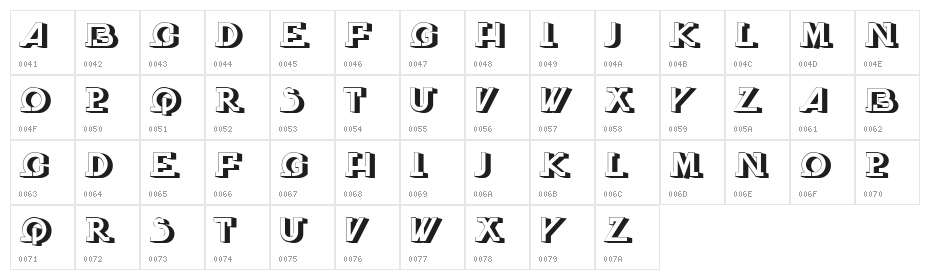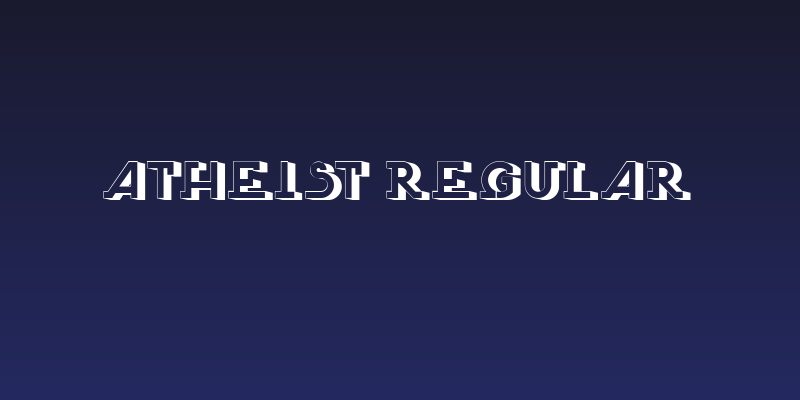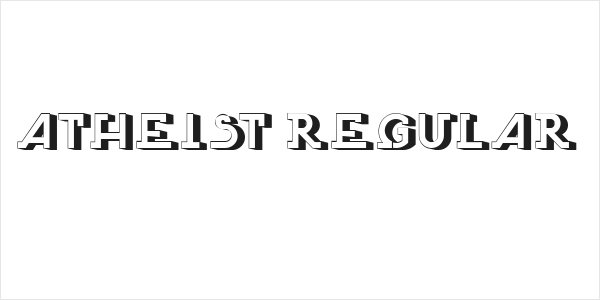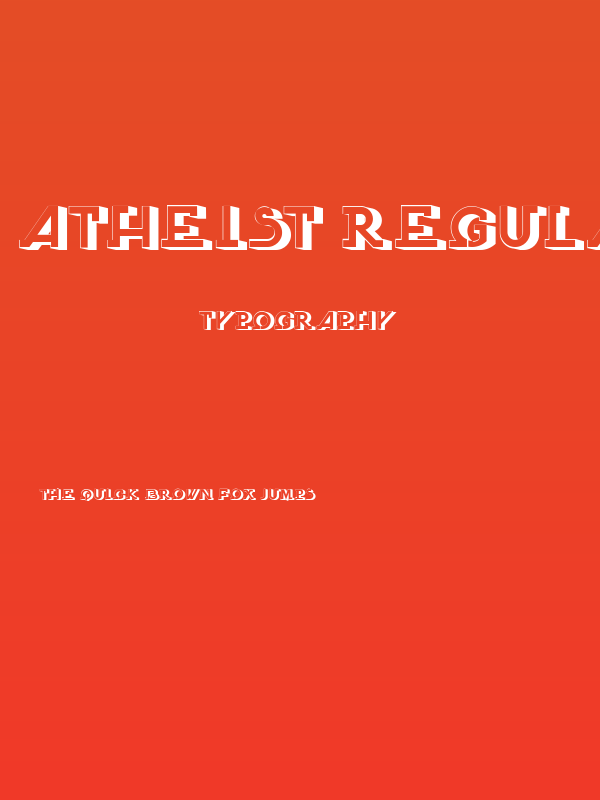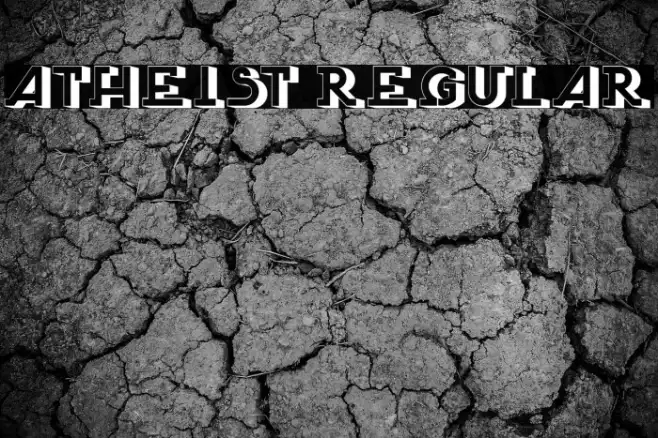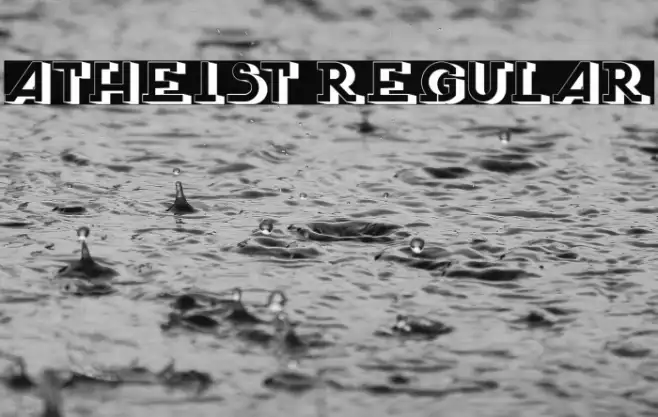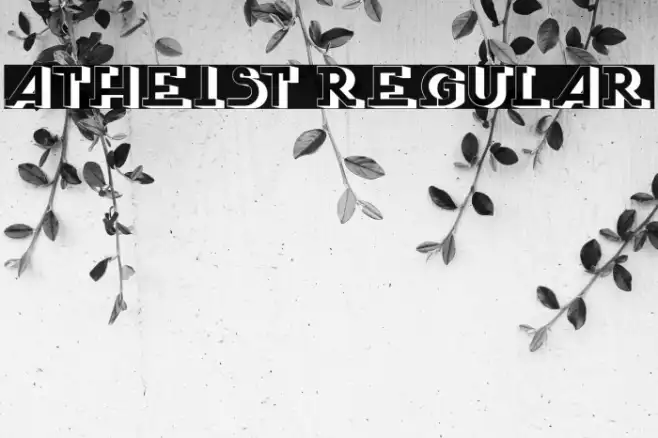
Atheist Regular Font
Atheist Regular Description
This font features a bold, three-dimensional design with a strong shadow effect, giving it a striking and dynamic appearance. The characters are uppercase, with a geometric and angular style that emphasizes sharp edges and clean lines. The shadow effect adds depth, making the letters appear as if they are popping out from the surface. This font is highly decorative and is designed to capture attention, making it ideal for impactful headlines or titles. The spacing between characters is normal, ensuring readability while maintaining its bold aesthetic.
| Proposed Projects | Ideal for use in posters, logos, headlines, and any design requiring a bold, eye-catching typeface. |